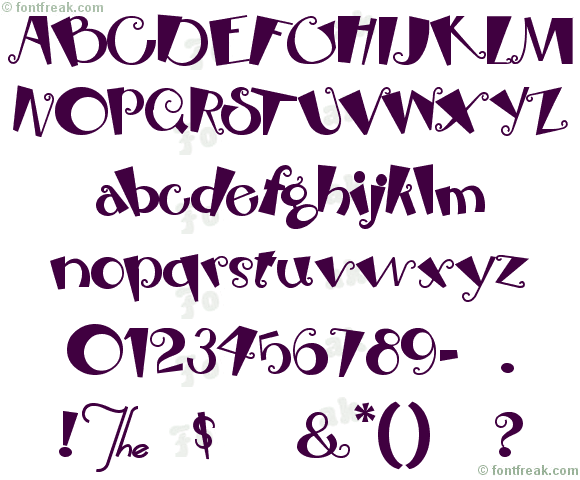
RhubarbPie
The Rhubarb Pie font by Nick Curtis is a delightful display typeface that captures a charming, whimsical essence. This freeware font combines a playful spirit with an elegant touch, making it suitable for a variety of creative projects. Characterized by its soft, rounded strokes and moderate contrast, Rhubarb Pie features a slightly irregular baseline that evokes a sense of hand-crafted authenticity. Its unique decorative elements, such as gentle curves and playful flourishes, add a distinct flair, making it visually engaging without overwhelming the reader.
Rhubarb Pie is best suited for specific applications that benefit from its quirky charm. It shines in contexts like wedding invitations, where its inviting appearance can set a warm tone. Additionally, this font works wonderfully for restaurant menus, particularly for establishments that wish to convey a friendly and approachable atmosphere. Movie posters can also benefit from its playful style, adding a whimsical touch to family films or light-hearted comedies. For small business owners, using Rhubarb Pie on promotional materials can help create a memorable brand identity that stands out in a crowded market. Content creators will find it effective for social media graphics, where the need for eye-catching typography is paramount.
The target audience for the Rhubarb Pie font includes graphic designers looking for unique typefaces, small business owners seeking to elevate their branding, and content creators who want to make their visual content more engaging. Overall, Rhubarb Pie stands out due to its delightful combination of playfulness and elegance, making it a versatile choice for anyone looking to add a touch of whimsy to their designs. For those interested in trying out this distinctive typeface, the Rhubarb Pie font free download offers a fantastic opportunity to explore its unique charm.